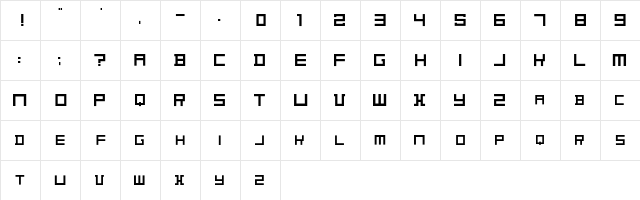
DeStyle Regular
Design Context for DeStyle Typeface
DeStyle takes a measured approach to typography — its balanced proportions and neutral character make it a reliable workhorse for both digital and print work.